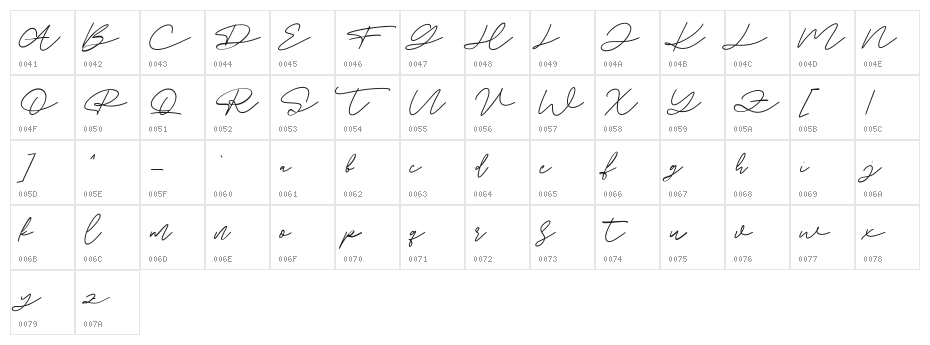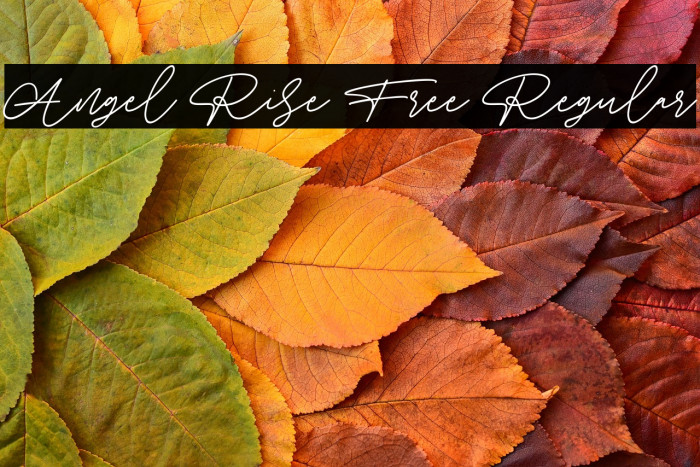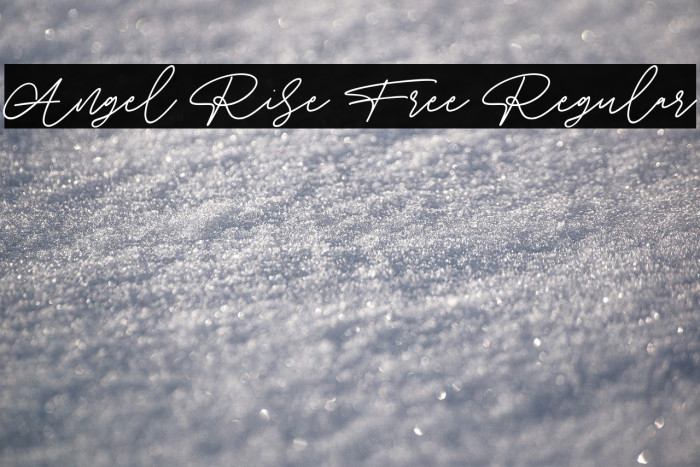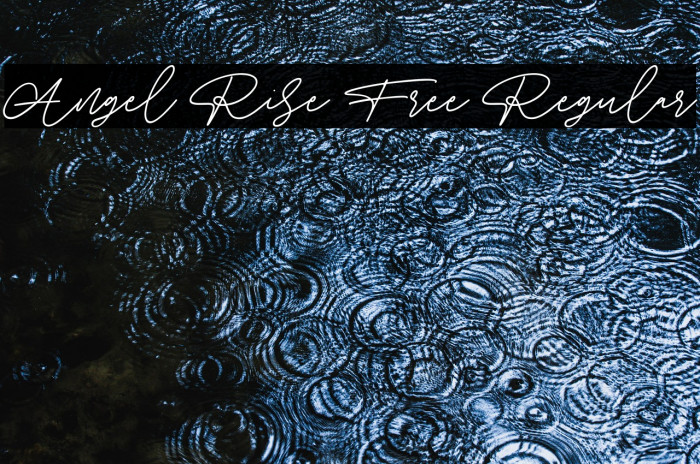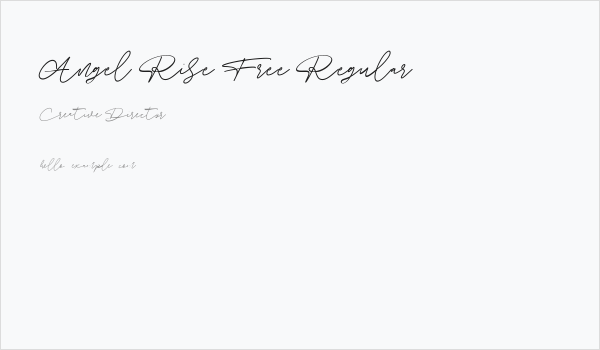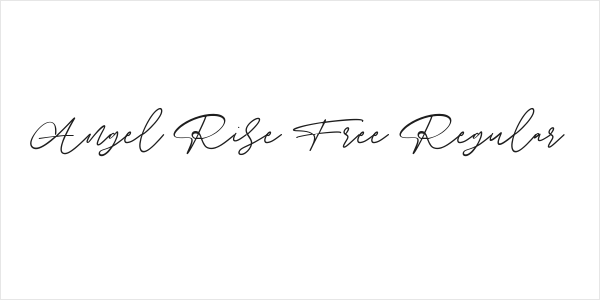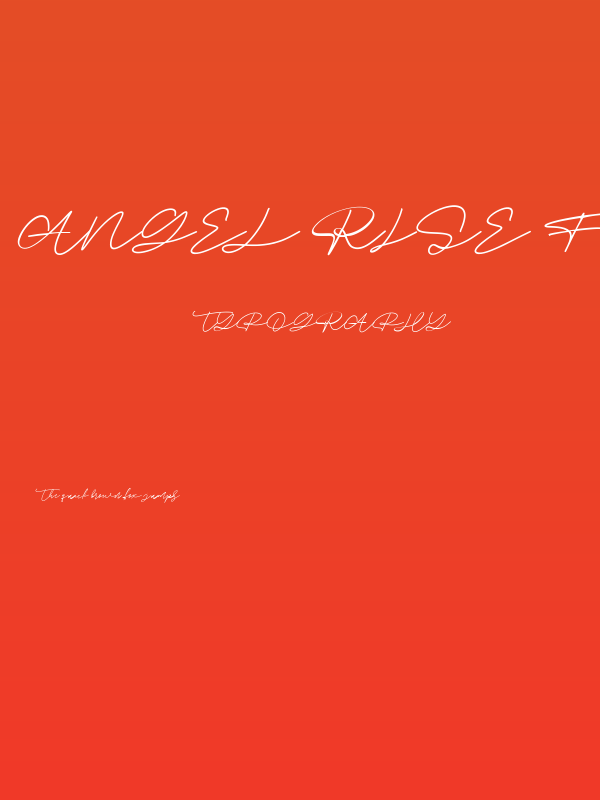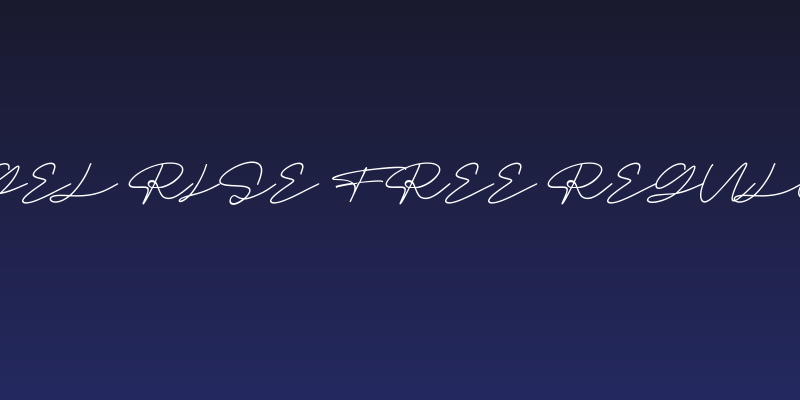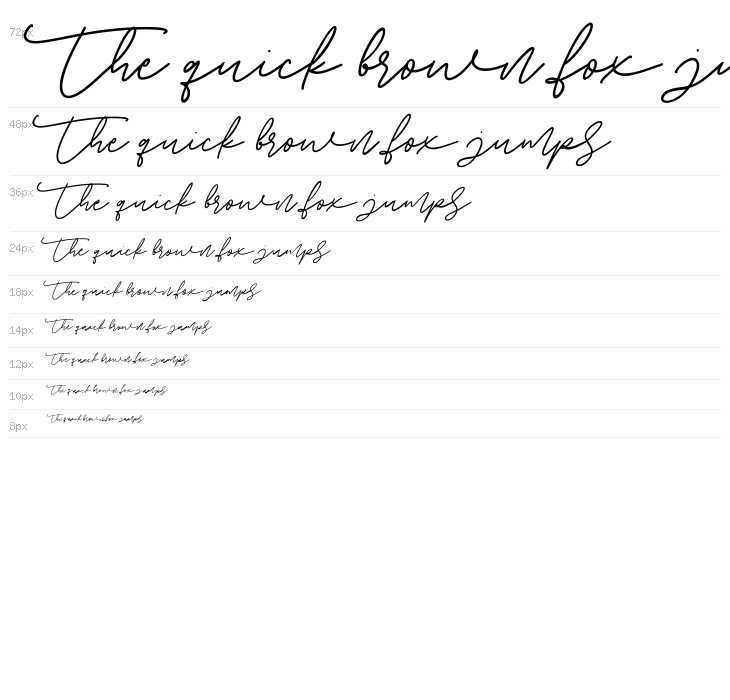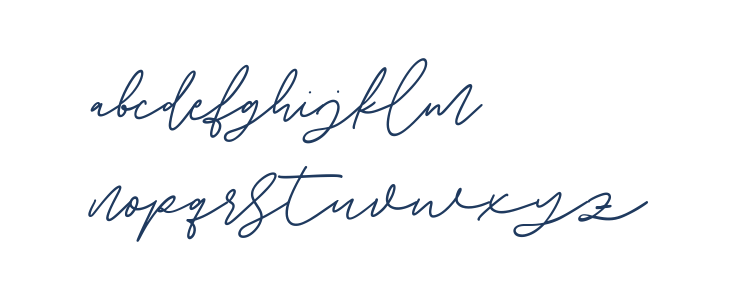
Angel Rise Free Regular Font
Angel Rise Free Regular Description
This font exhibits a flowing, cursive style that mimics elegant handwriting. The letters are interconnected, creating a seamless and fluid appearance. The uppercase letters maintain a consistent height, while the lowercase letters vary slightly in size, adding a dynamic touch. The strokes are smooth and continuous, with a slight slant that enhances the handwritten feel. This font is perfect for projects that require a personal, artistic touch, such as invitations, greeting cards, or branding materials. The overall design is both sophisticated and approachable, making it versatile for various creative applications.
| Use Case | Logos, Invitations, Artistic projects |
| Proposed Projects | Ideal for invitations, greeting cards, branding, and artistic projects. |